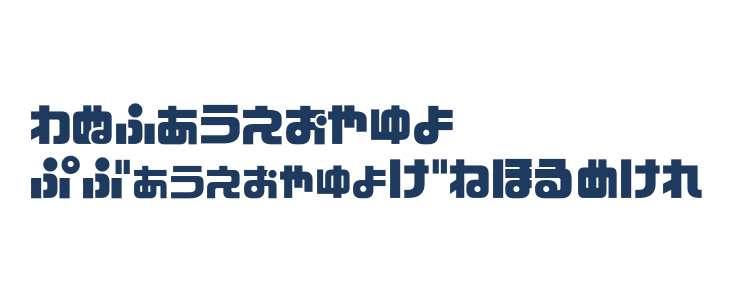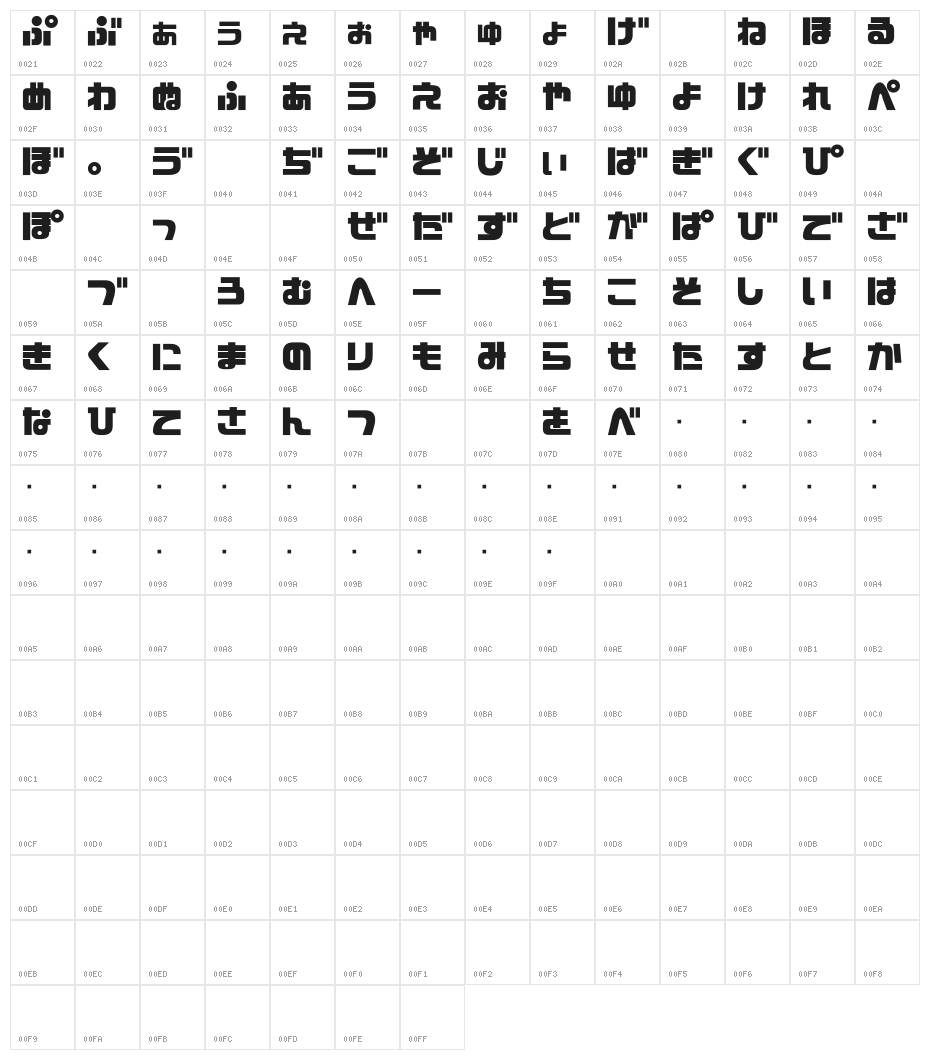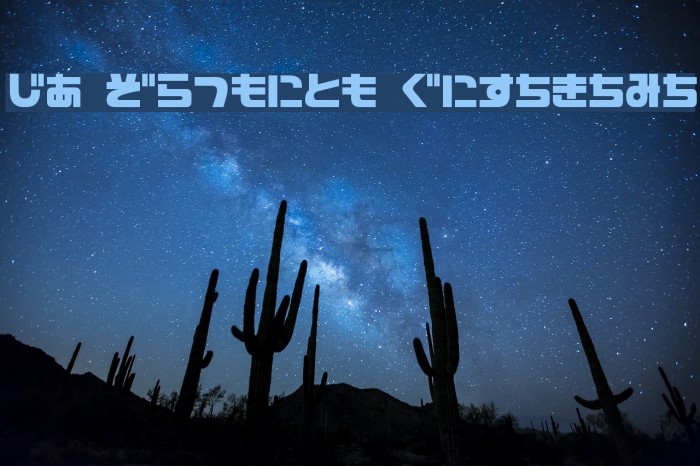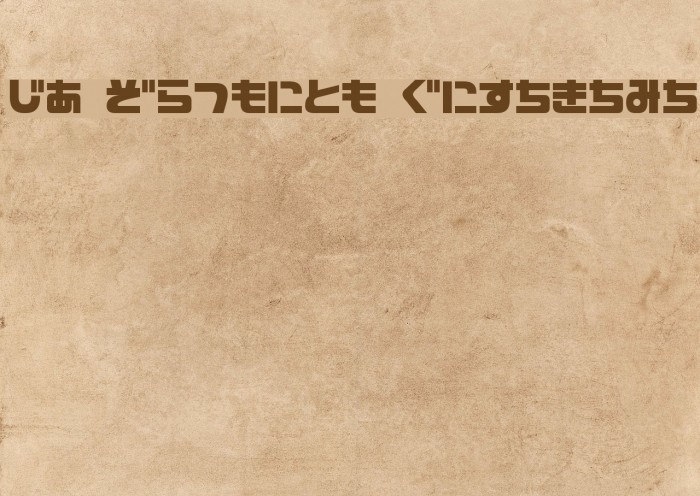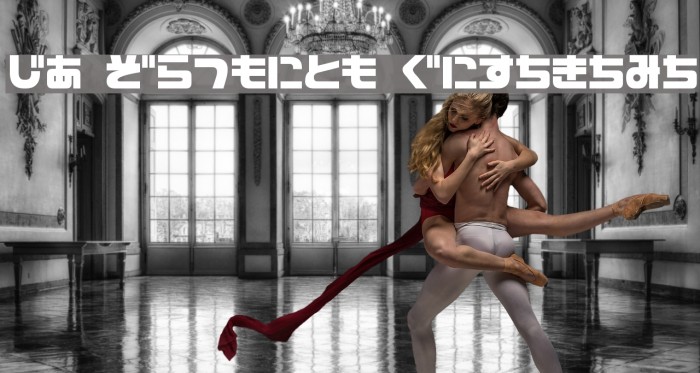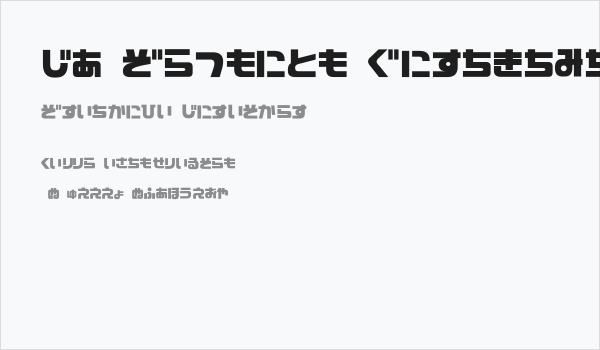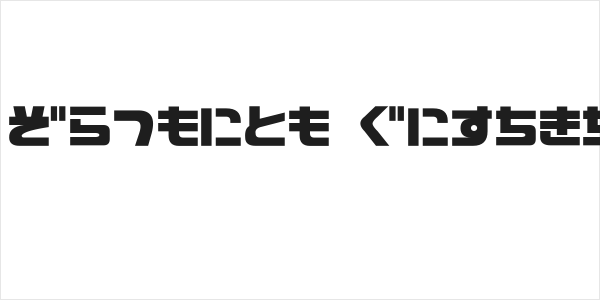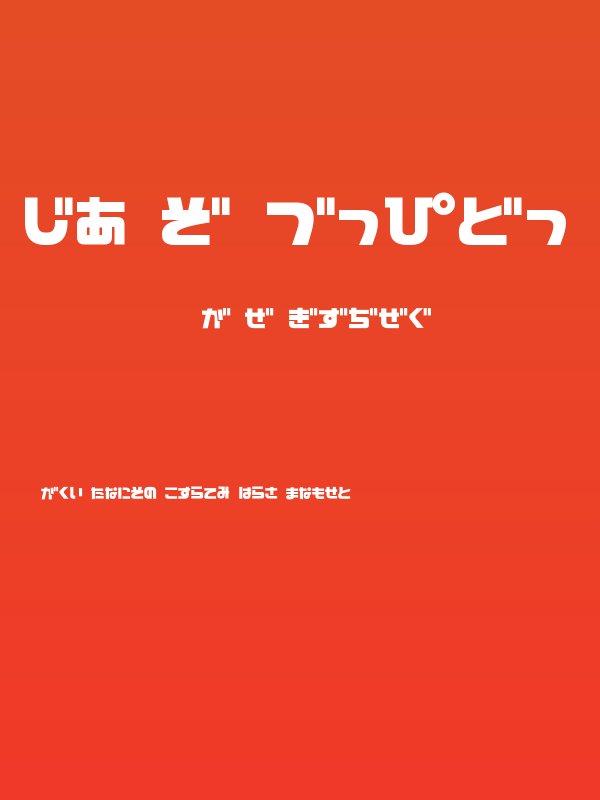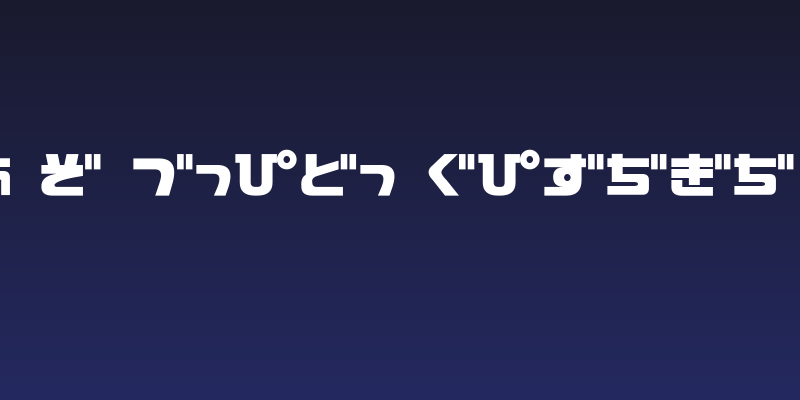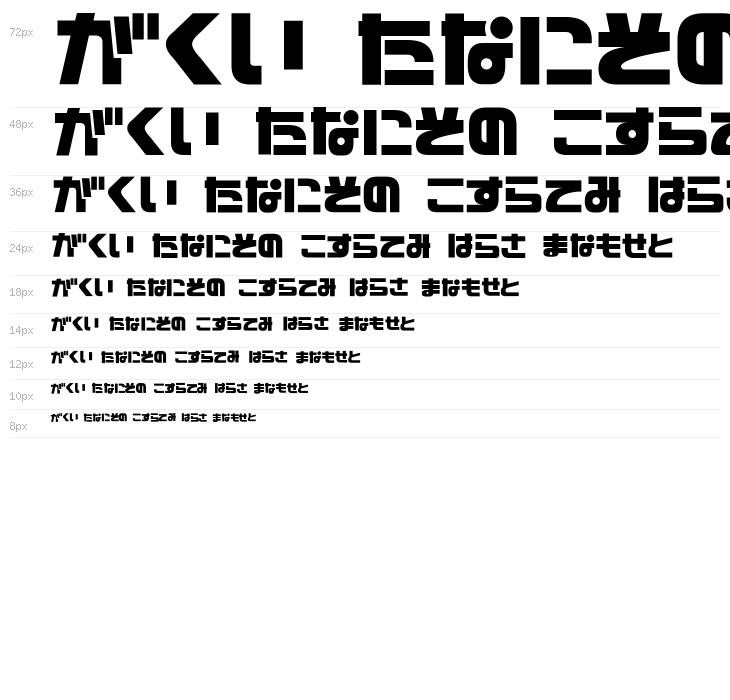
D3 Cozmism Hiragana Font
D3 Cozmism Hiragana Description
This font features bold, rounded characters with a modern and playful aesthetic. The strokes are thick and uniform, giving it a strong presence. The characters are well-spaced, ensuring readability while maintaining a cohesive look. The style is distinctly contemporary, with a slight nod to retro design elements. The font's boldness makes it suitable for attention-grabbing headlines or titles. Its rounded edges add a friendly and approachable feel, making it versatile for various design projects.
| Proposed Projects | Ideal for branding, posters, children's books, and playful graphic design projects. |